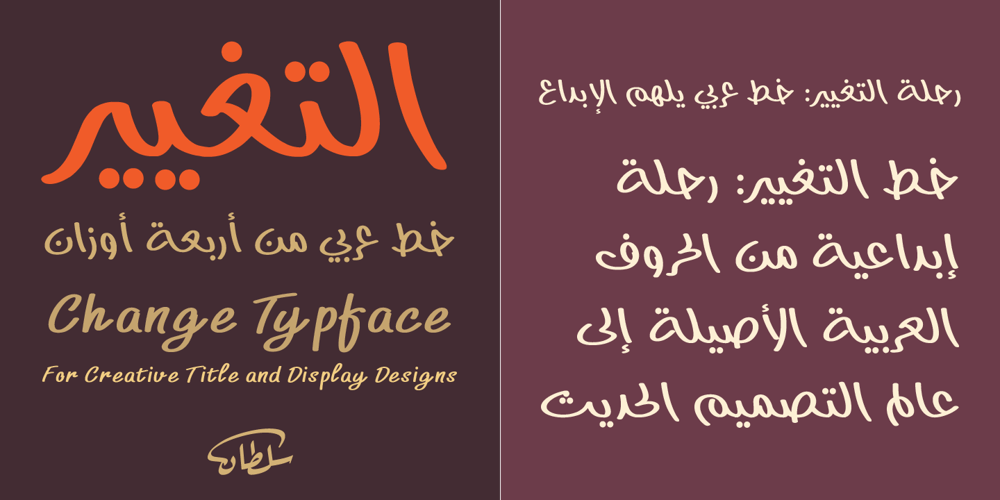
SF Change Font Family was designed by Sultan Maqtari and published by Sultan Fonts. SF Change contains 1 styles and family package options. Change is An Arabic text typeface for desktop applications. Change is freestyle Ruqah and a winner in Horouf Bilingual Typefaces Design Competition. The design is open, calligraphic, and very dynamic. This makes it suitable for large display sizes, especially in the area of advertising, while still functioning well as a text face. The font includes a matching Latin design and support for Arabic, Persian, and Urdu. It also includes proportional and tabular numerals for the supported languages. Change typeface comes with many opentype features.